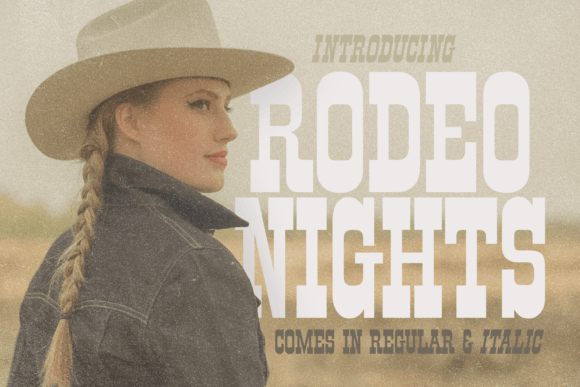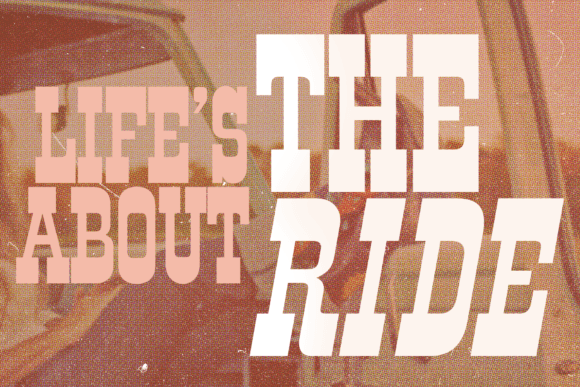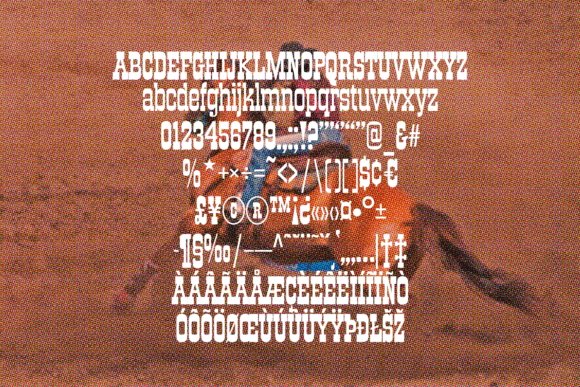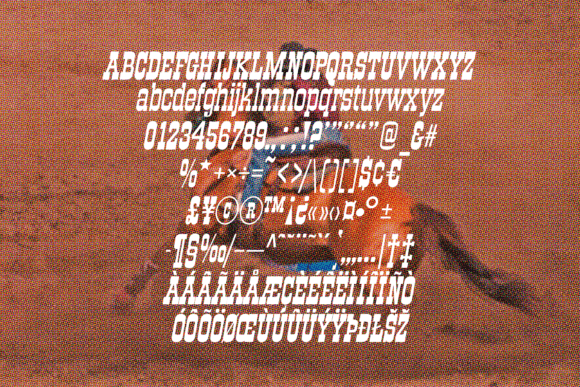
Rodeo Nights Font: A Bold Western Serif for Authentic Branding & DIY Projects
About the Rodeo Nights Font
The Rodeo Nights Font offers a perfect balance of form and function for your design needs. Rodeo Nights is a bold and rugged slab serif font with a Western vibe. Inspired by the iconic style of cowboy culture, this font features thick lines and sharp angles that command attention. Its distinct personality makes it perfect for logos, posters, and other designs that require a touch of the Wild West.
Rodeo Nights excels in headlines, posters, and branding applications where a strong, assertive presence is desired. Its boldness makes it unsuitable for body text or UI elements; readability suffers at smaller sizes. Consider it for projects evoking themes of the American West, country music, or whiskey brands.
The font’s rugged personality pairs well with clean sans-serifs like Futura or Open Sans for a balanced contrast. For a more rustic feel, a complementary serif like Playfair Display could be used, while a handwritten script font like Great Vibes could add a touch of vintage charm.
Rodeo Nights projects a bold, rebellious energy. It’s ideal for brands seeking to convey strength, authenticity, and a touch of untamed spirit. Avoid pairing it with overly delicate or whimsical fonts, as this could dilute its powerful character.
Rodeo Nights Font Usage Examples
Rodeo Nights Font Example